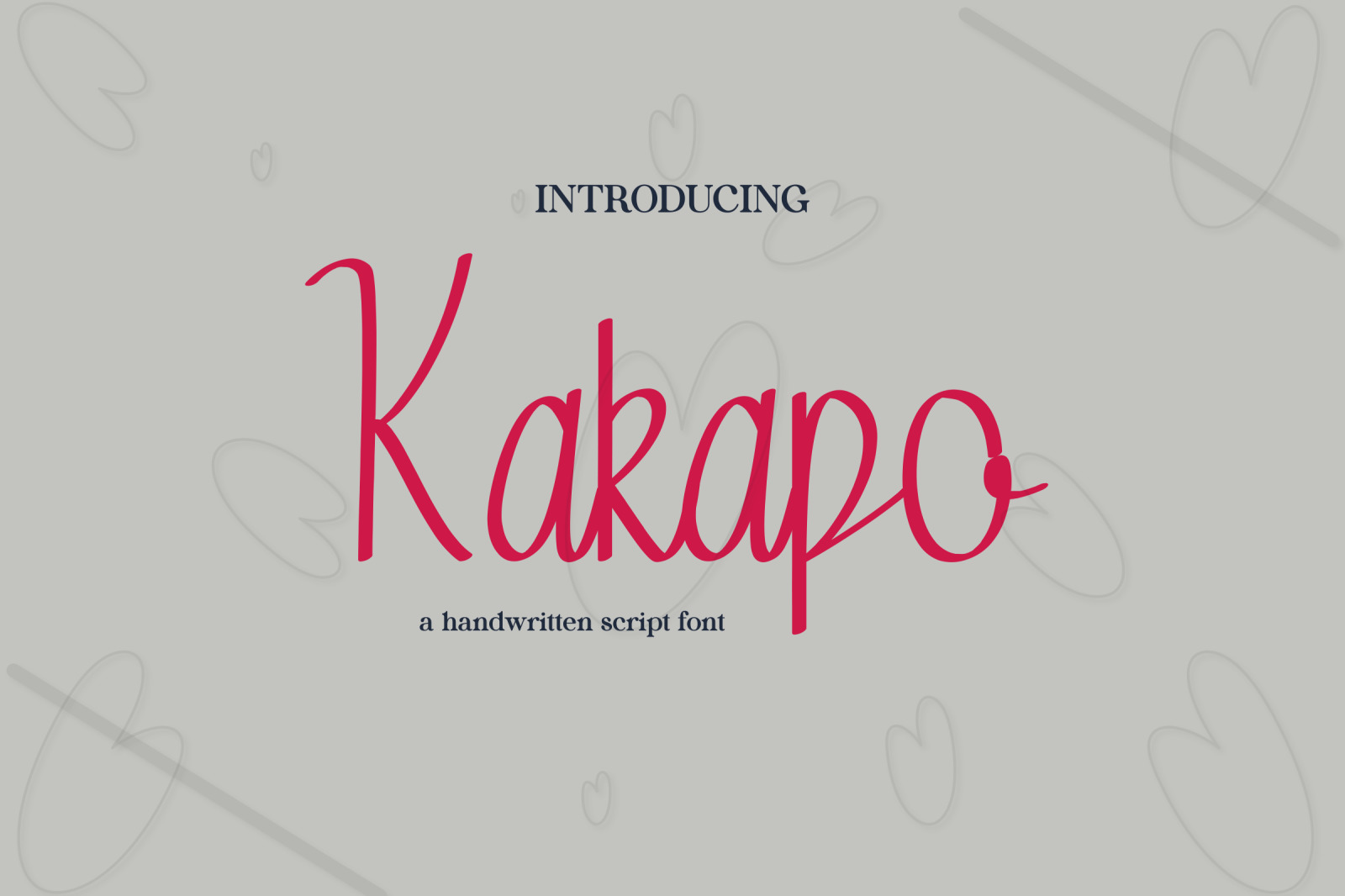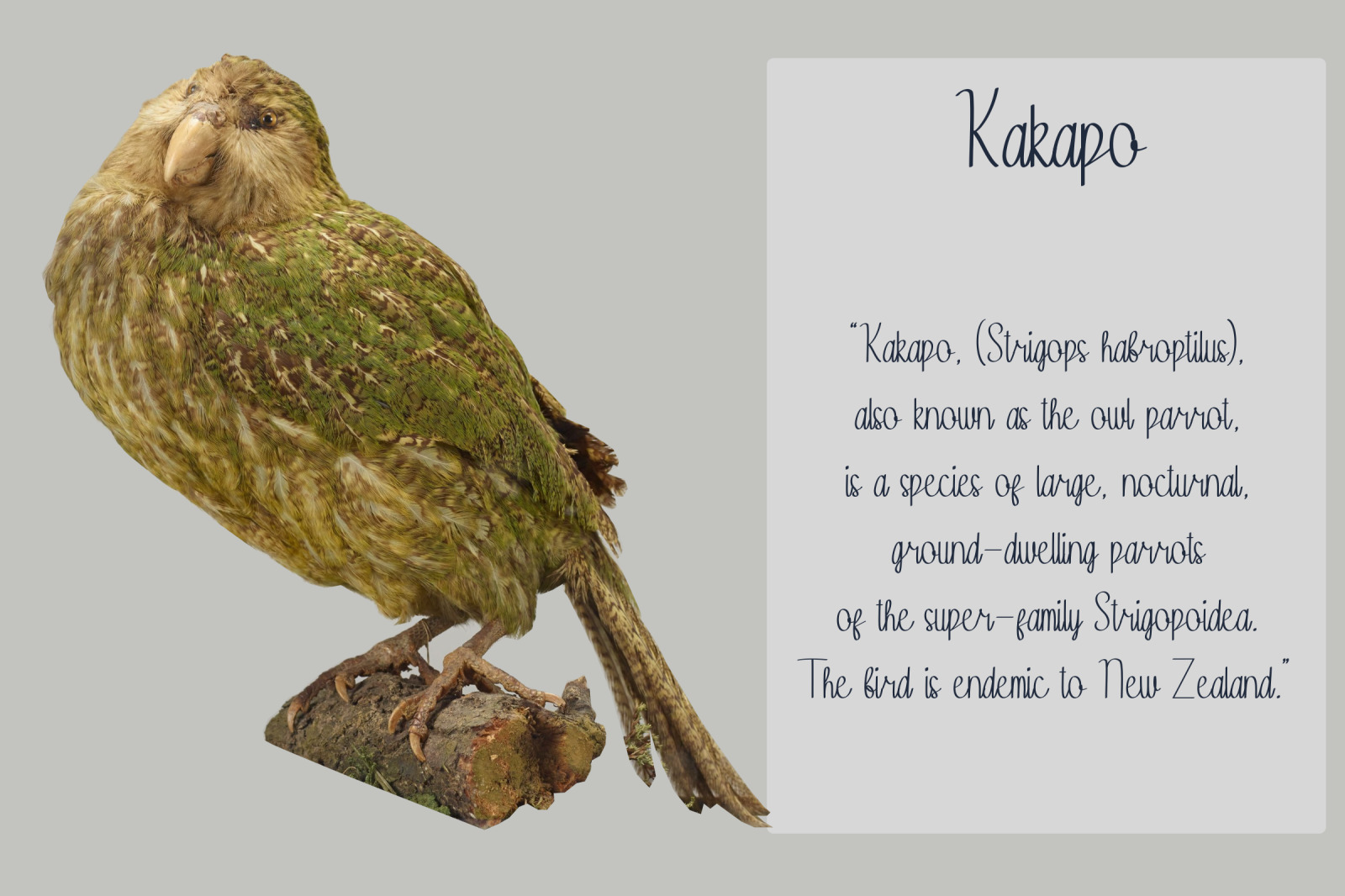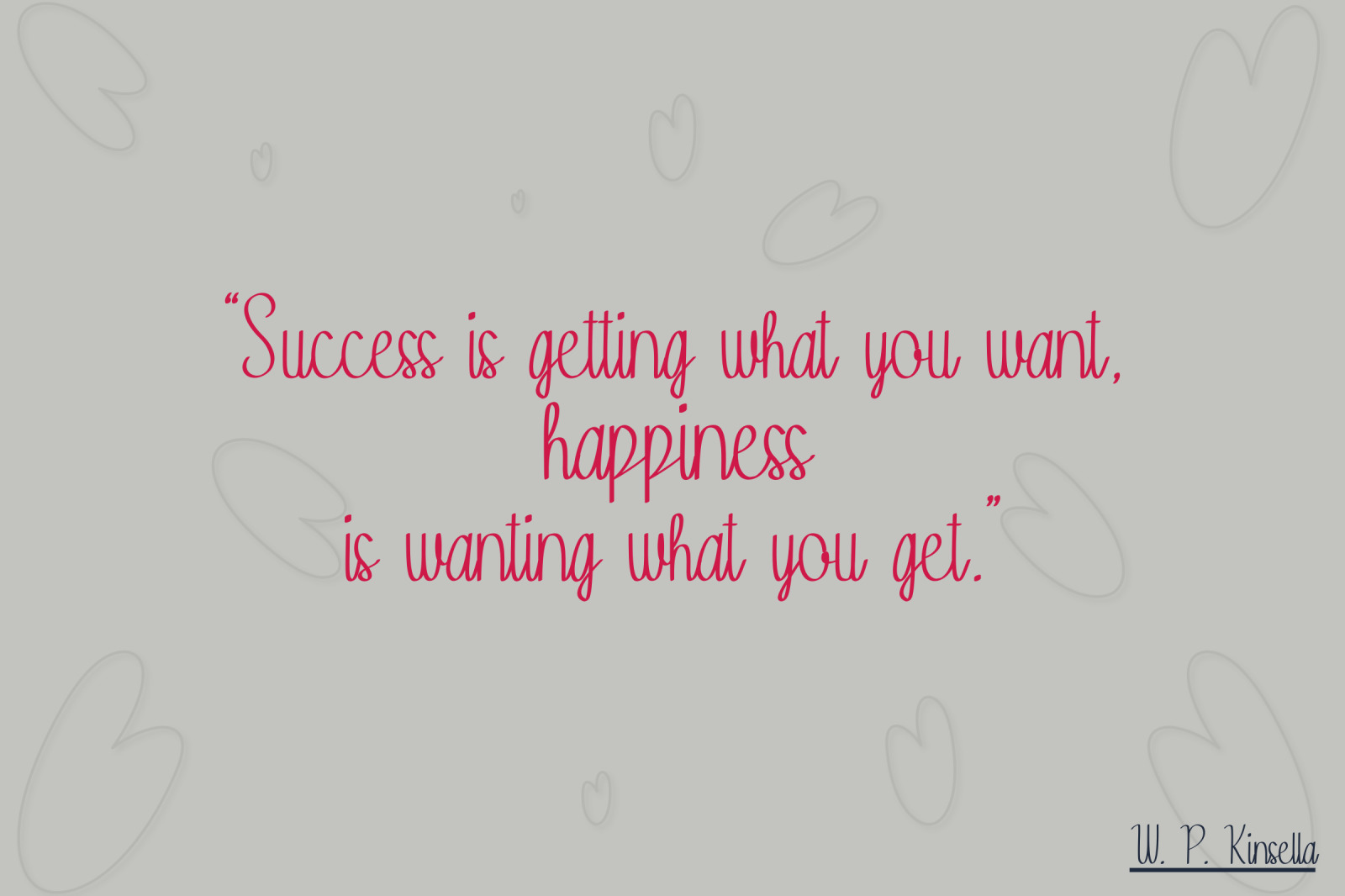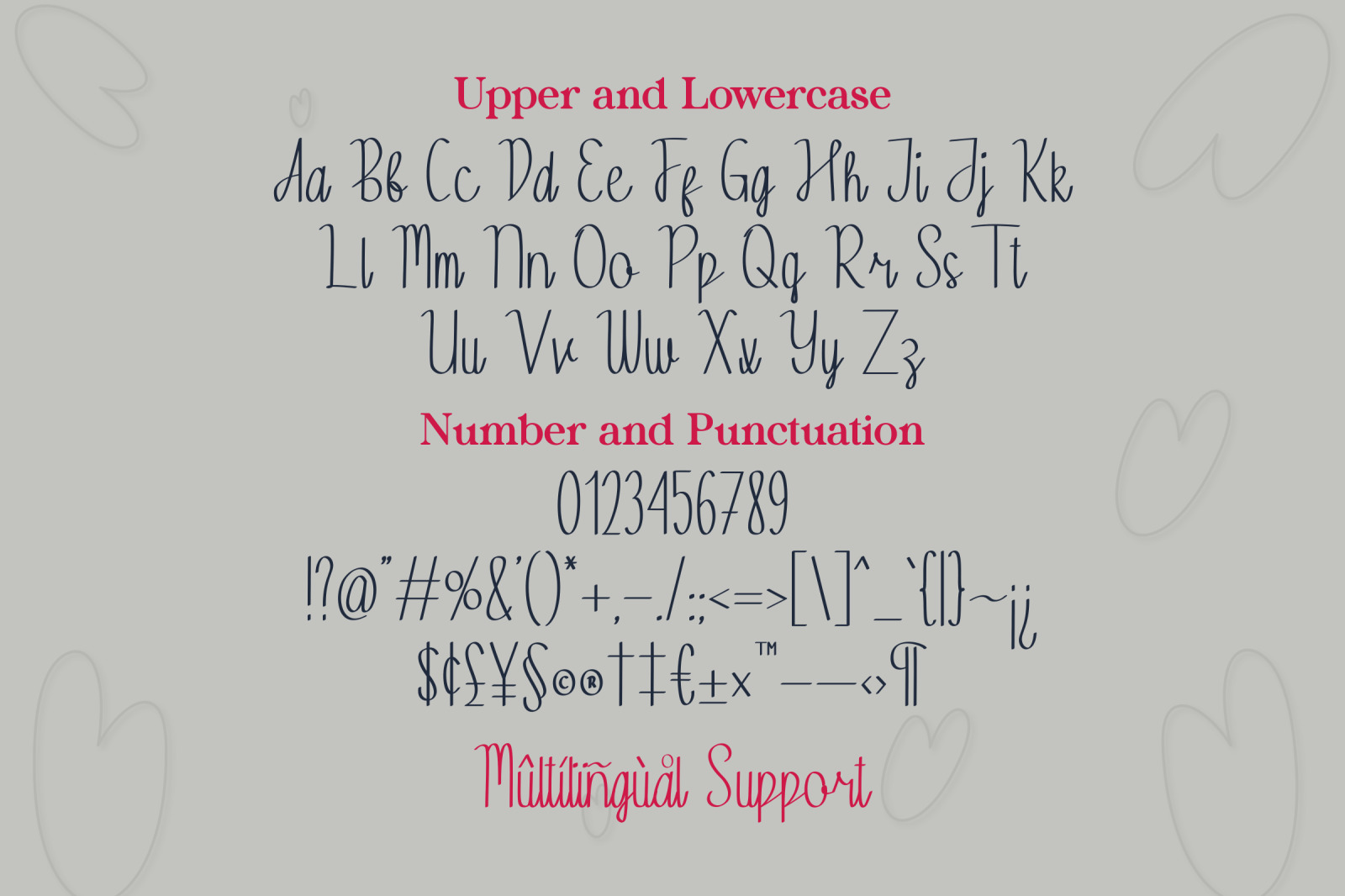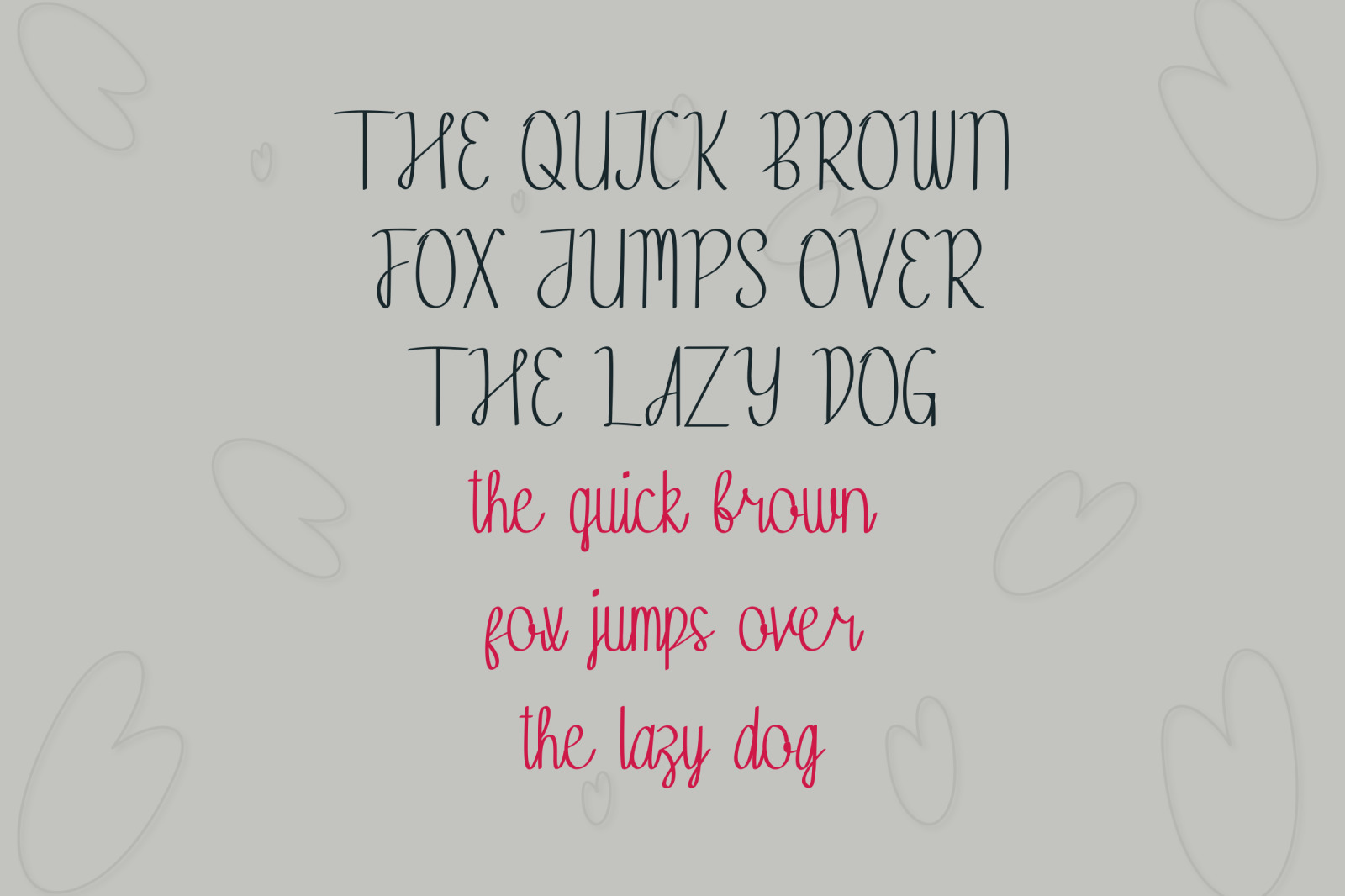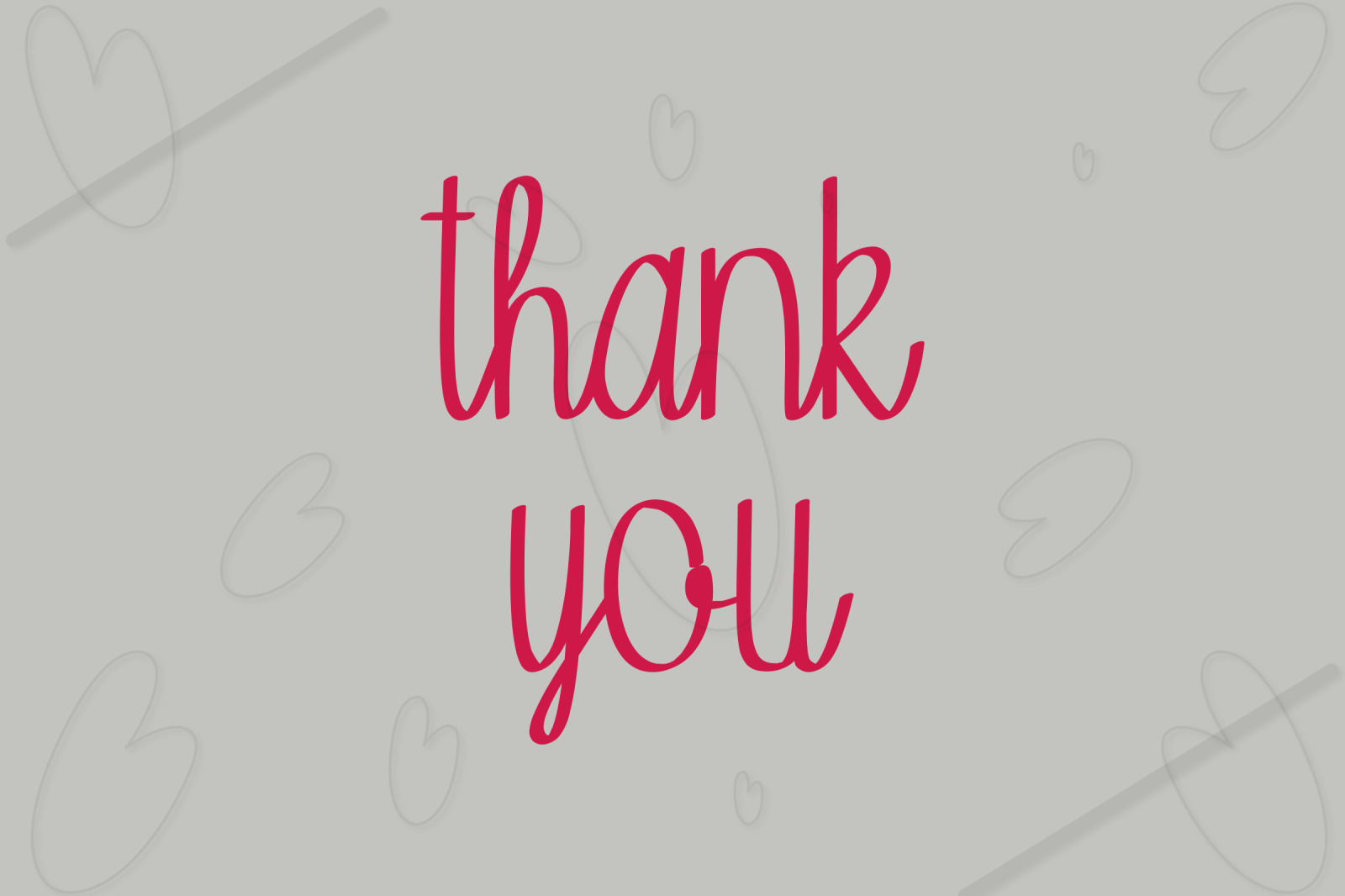
Kakapo Font
Kakapo is a whimsical and captivating handwritten script font that adds charm and artistic flair to any design. With its expressive strokes and playful nature, it infuses a sense of uniqueness and personality into your projects.